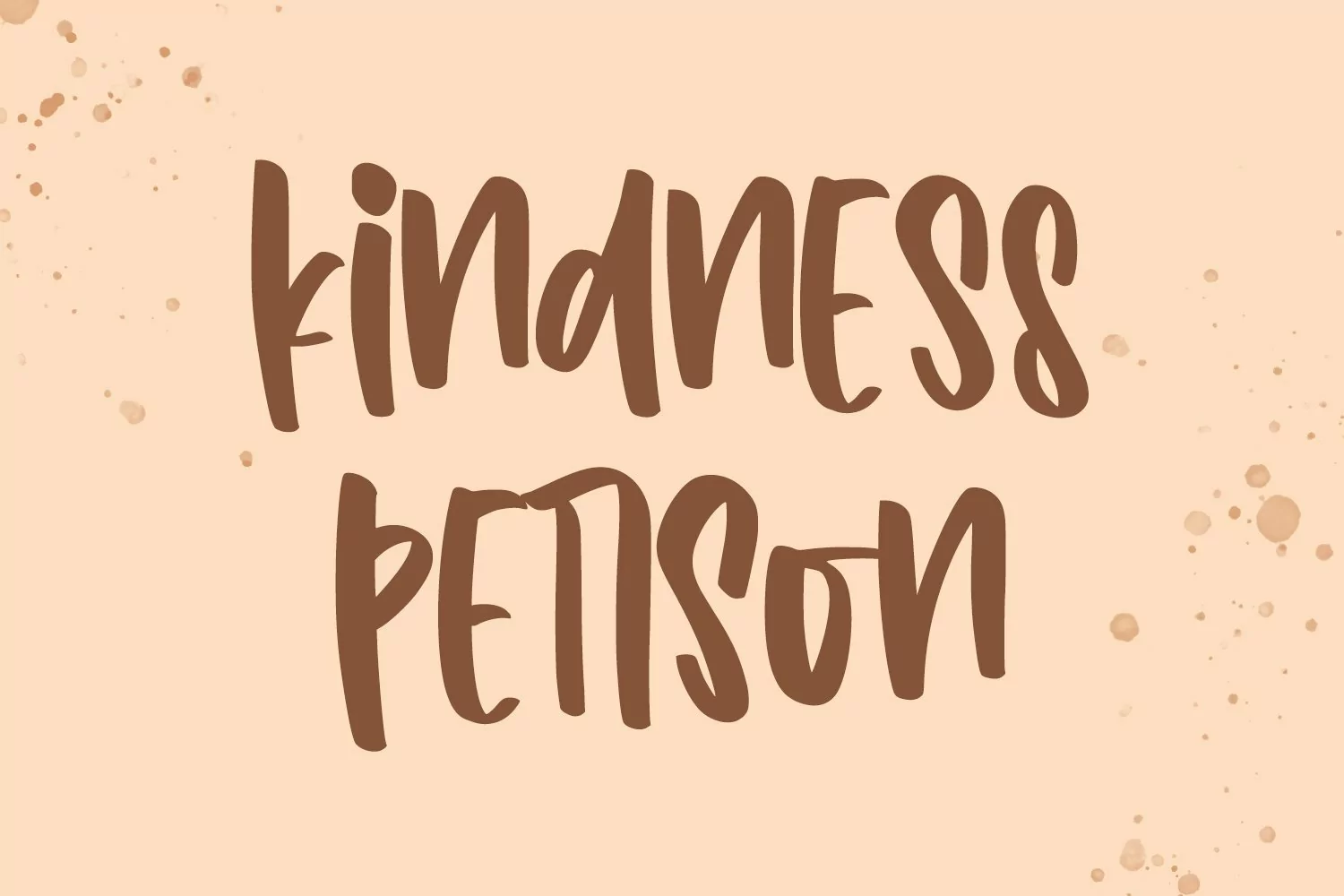
CookieRecipe - Cute Handletter Font that contain lowercase, uppercase, symbol, and also support multi language. There’s a lot ligatures in this font. This Font also comes with ligatures, alternates and many more. this font suitable for fashion, branding, catalog and other design what you want.
Cookie Recipe